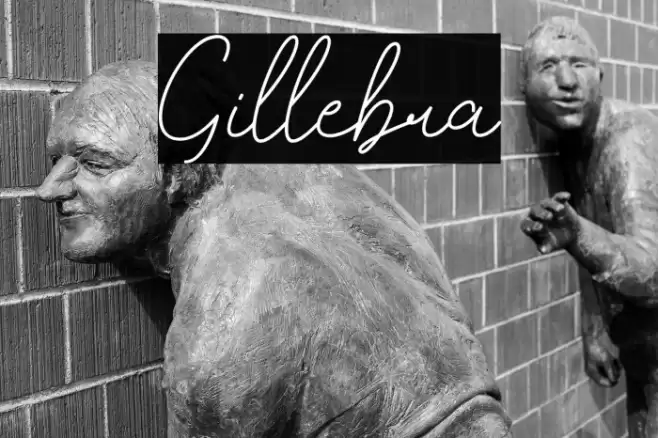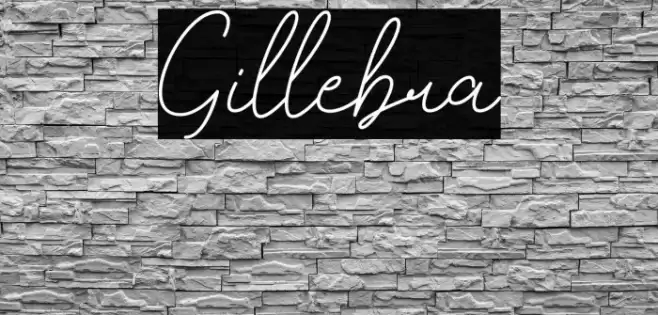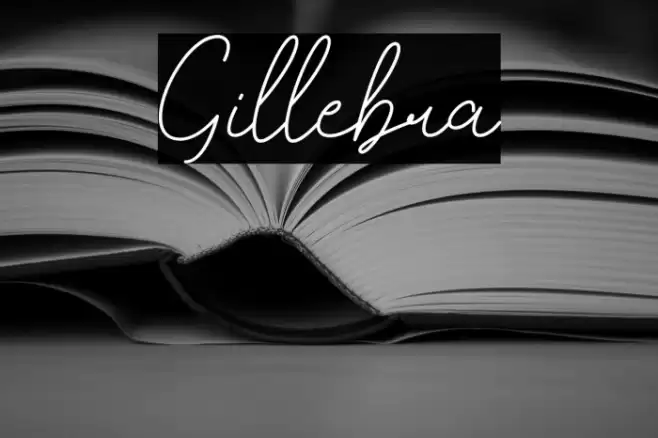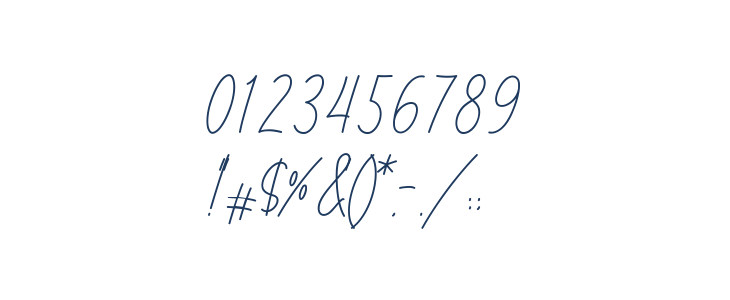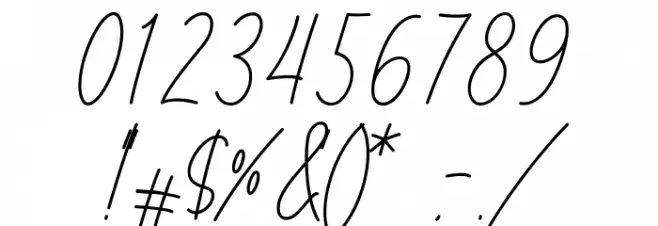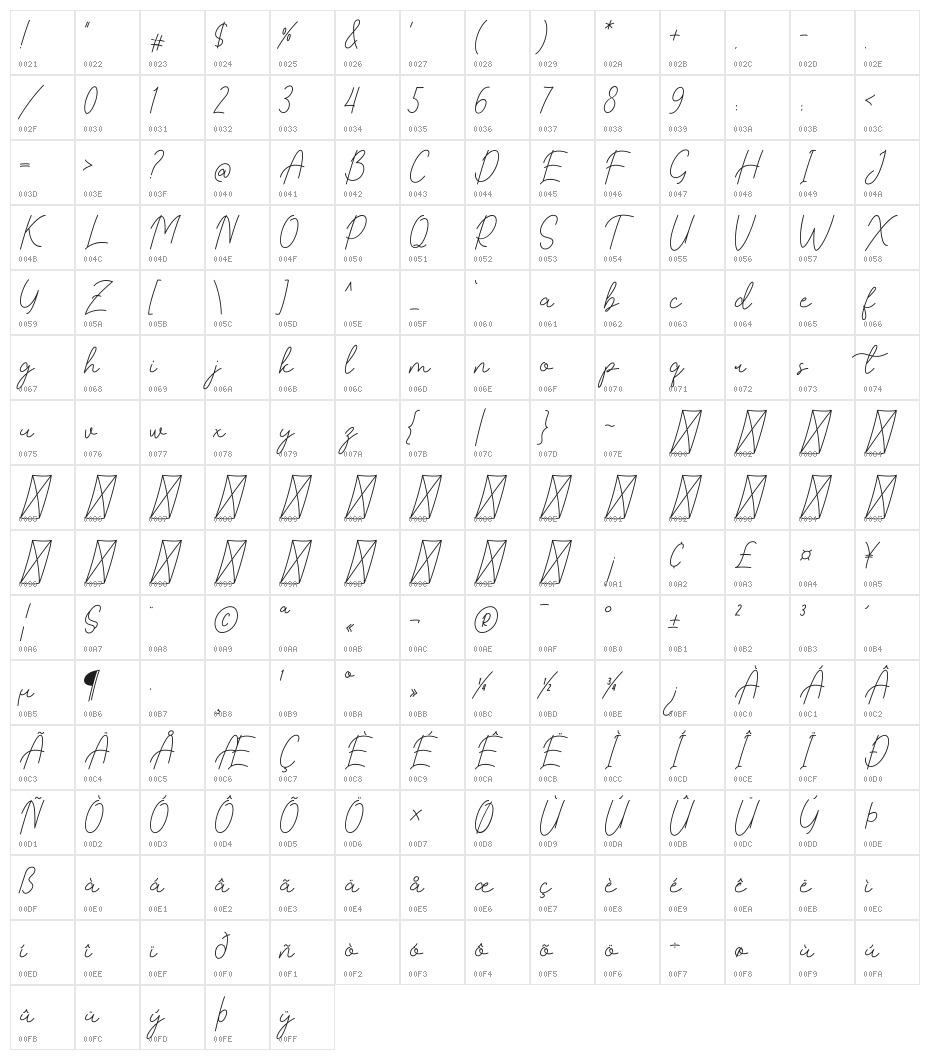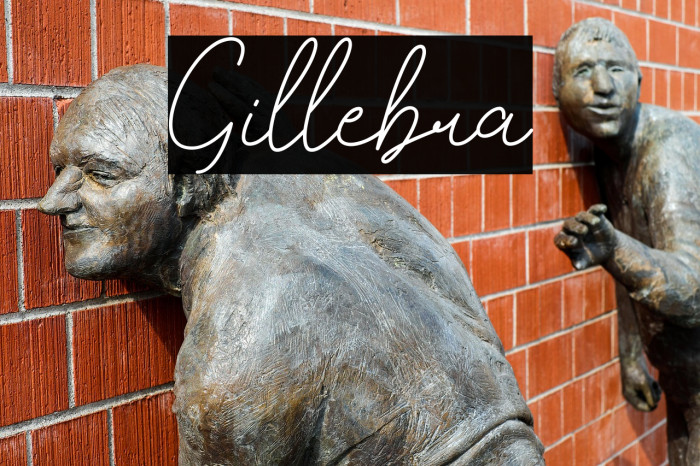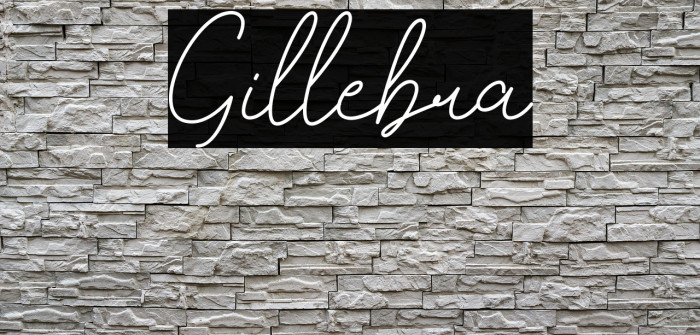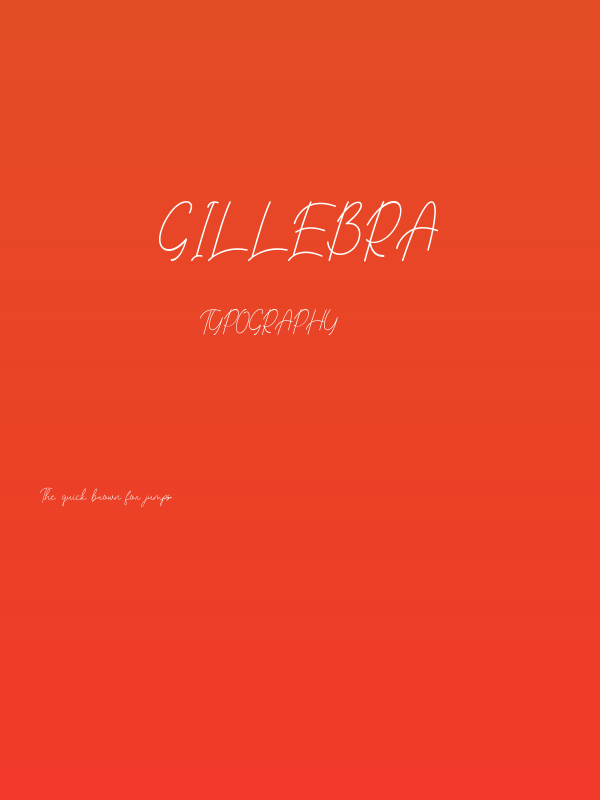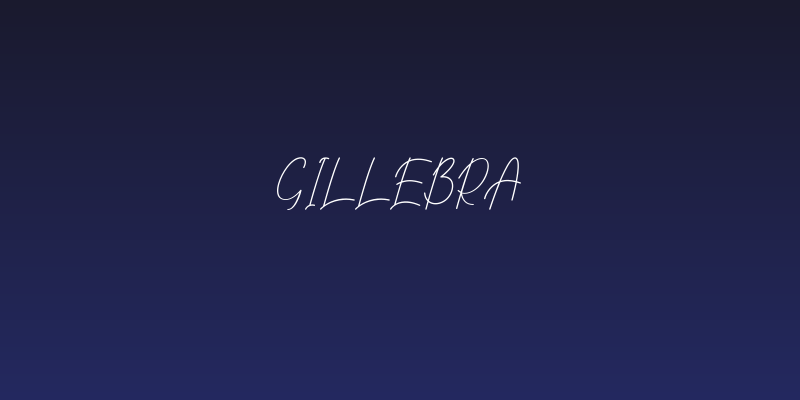
Gillebra Font
Gillebra Description
This font features an elegant and flowing script style, characterized by its smooth, cursive letterforms. The uppercase letters are tall and slightly slanted, giving a sense of movement and grace. The lowercase letters are connected, enhancing the script's fluidity. The numbers maintain the same cursive style, ensuring consistency across all characters. Special characters are also included, matching the overall aesthetic. The font's thin strokes and delicate curves make it suitable for projects that require a touch of sophistication and elegance.
An elegant, flowing script font with smooth, cursive letterforms from Regular fonts.
- Font: Gillebra
- Proposed Projects: Ideal for wedding invitations, greeting cards, elegant branding, and personal stationery.
- Weight: Light
- Overall Style: Elegant
- Use Case: Logos, Invitations, Personal stationery